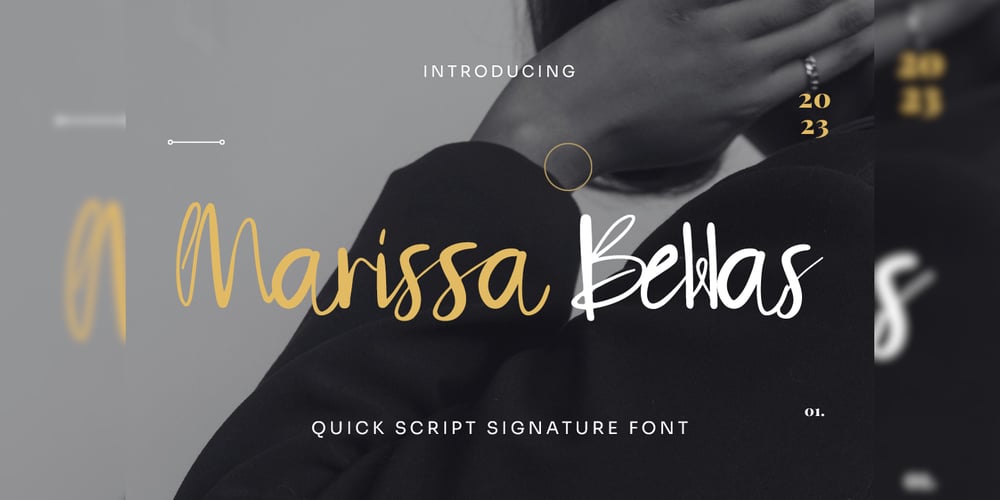
Marissa Bellas Font Family was designed by Dhimas Habibie and published by Yumnacreative. Marissa Bellas contains 1 styles and family package options. Introducing Marissa Bellas – Script Signature FontThis Font is a delicate, elegant and flowing handwritten font. It has beautiful and well as a unique blend of ligatures a letter, so that the authors compose it with a and little swirly embedding, so that a modern font is formed and ready to make a statement by adding elegant and unique flair to your next design project. Add it to your most creative ideas and notice how it makes them come alive!This Font can be used for various purposes such as Magazine Title, Poster, Logo, T-Shirt, Sub Title, Business cards, Magazines, Book Covers, Wedding Invitations,Templates Instagram Story Post, Greeting Cards, Quotes, etc.FEATURES- Uppercase and Lowercase letters- Numbering and Punctuations- Ligature- Multilingual Support- Works on PC or Mac- Simple Installation- Support Adobe Illustrator, Adobe Photoshop, Adobe InDesign, also works on Microsoft WordHope you Like it.Thanks.